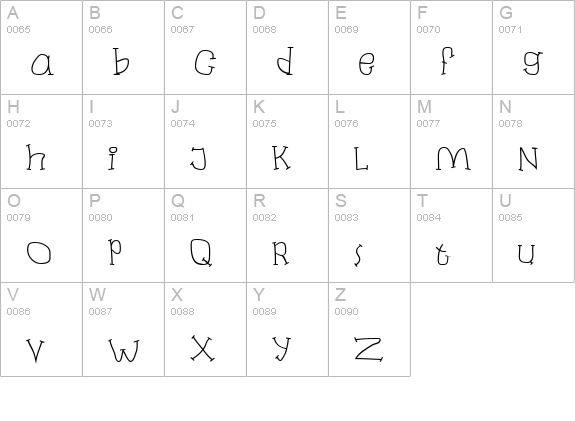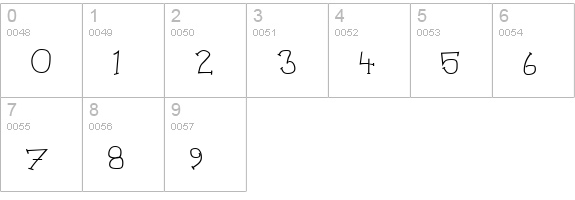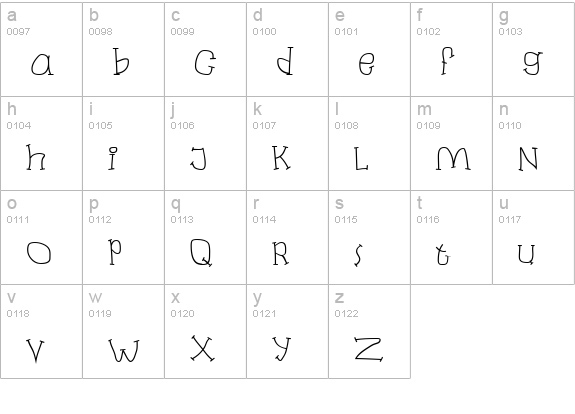
Laban Font Details
Laban font is a stylish and modern typeface that is perfect for adding a touch of sophistication and elegance to any design project. With its sleek lines and clean curves, Laban is sure to make a statement and grab attention. This versatile font is suitable for a wide range of applications, from logos and branding to headlines and body text. Its timeless appeal and legibility make it a popular choice among designers and typographers alike. One of the best things about Laban font is that it is completely free. Yes, you read that right - you can download this amazing font for free! It's available for download at FontsMarket.com, a trusted and reliable source for high-quality fonts. Whether you're a professional designer or a novice, Laban font is a must-have in your font collection. Its versatility and aesthetic appeal will elevate your designs to the next level. So don't miss out on this amazing opportunity to get Laban font for free at FontsMarket.com. Download it now and start creating stunning designs that are sure to impress.